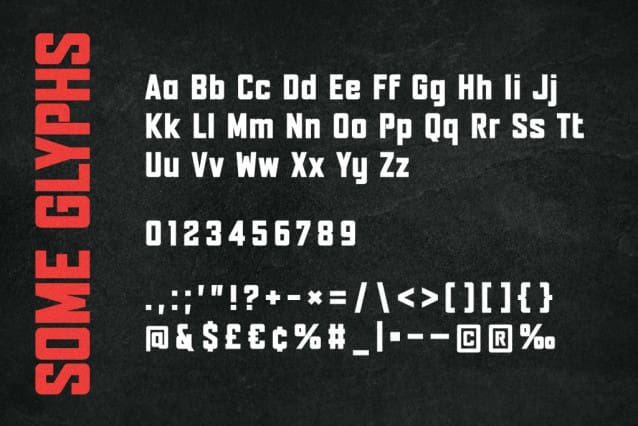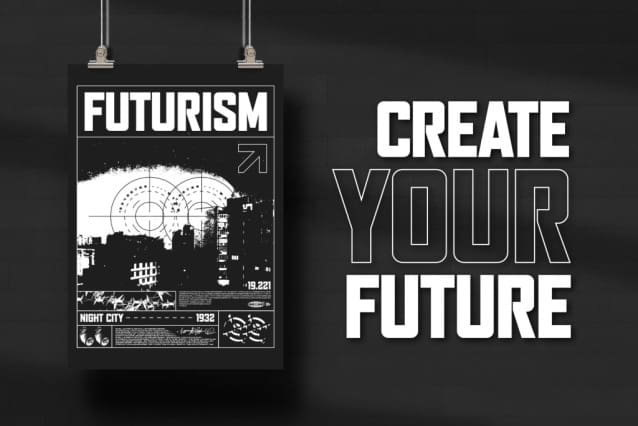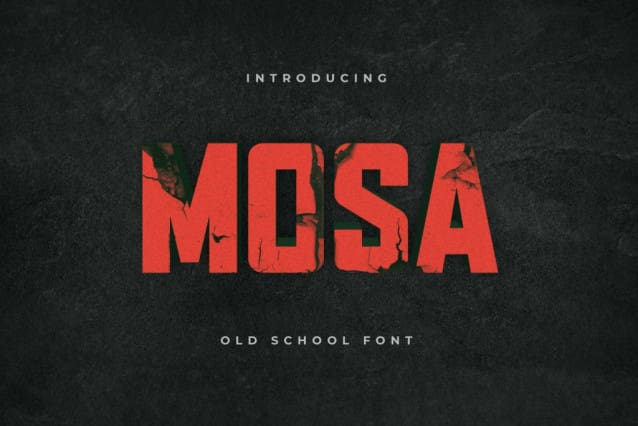
Mosa Font
Mosa Font is a cool and unique sans serif font. Add it to your creative projects and use it to create original designs.  Ideal for logos, handwritten quotes, product packaging, header, poster, merchandise, social media & greeting cards.